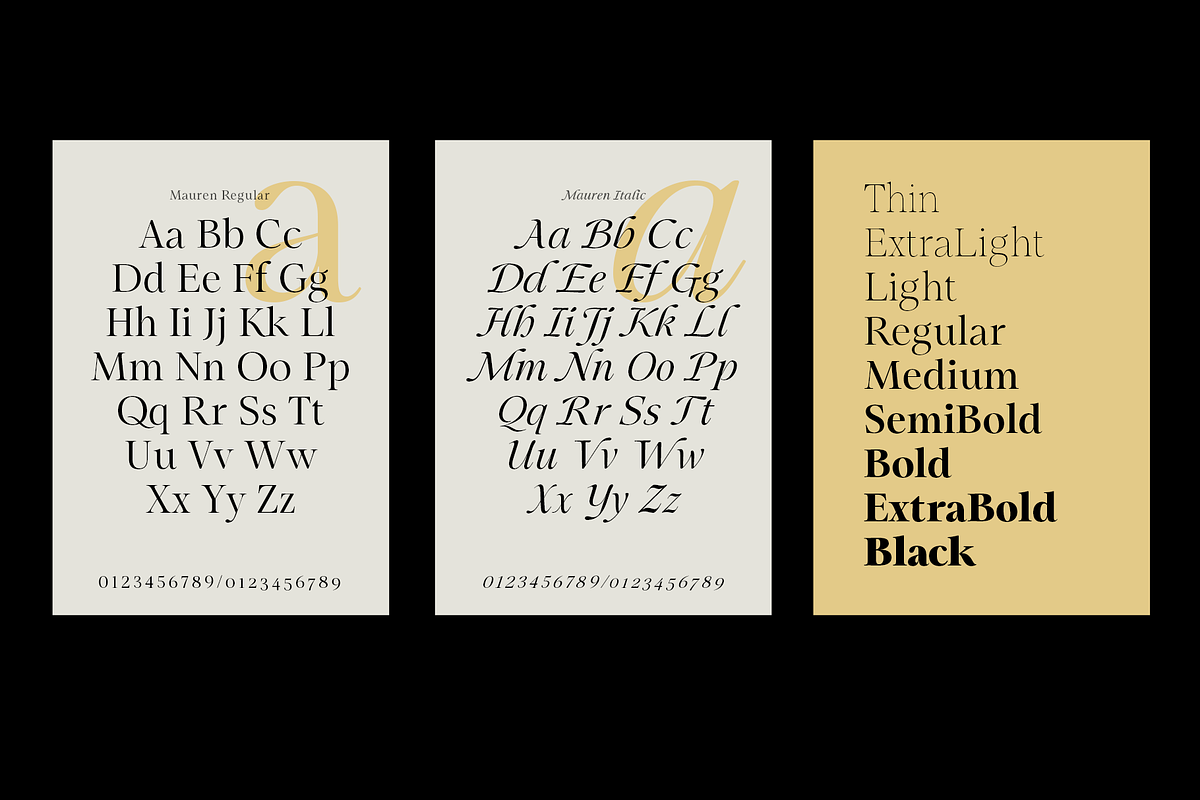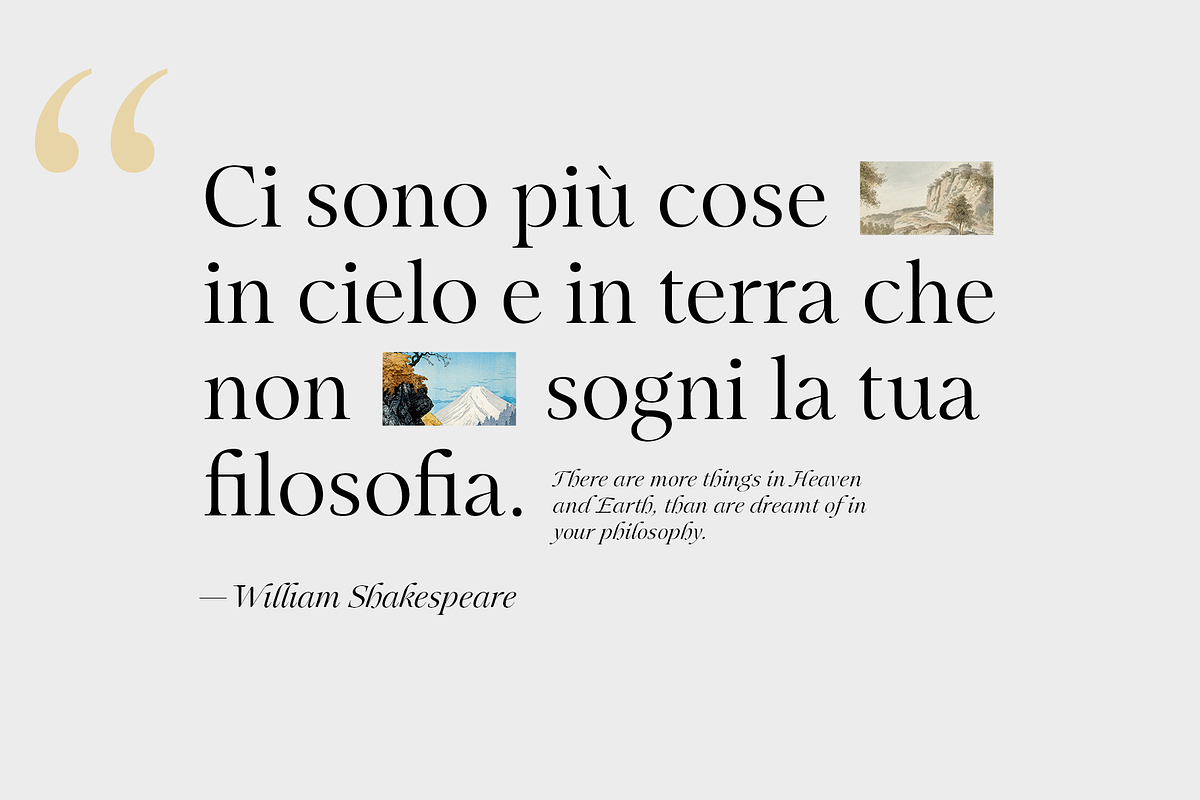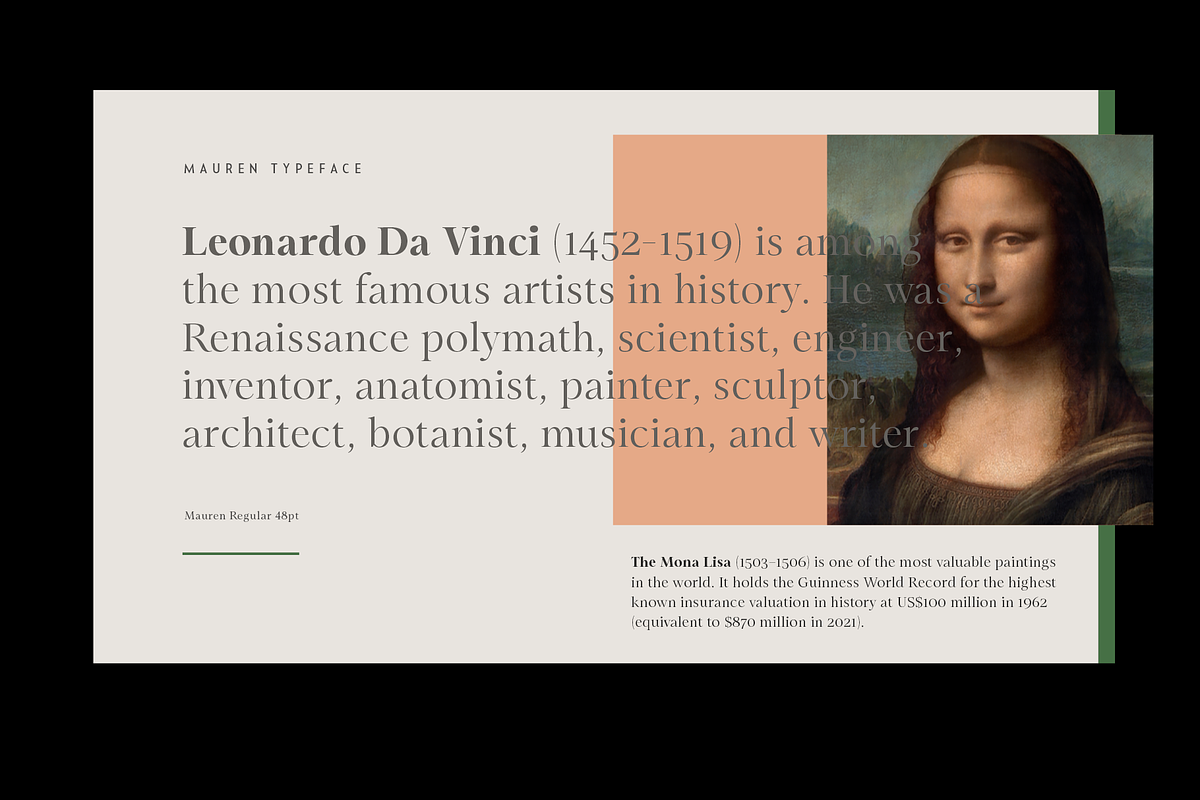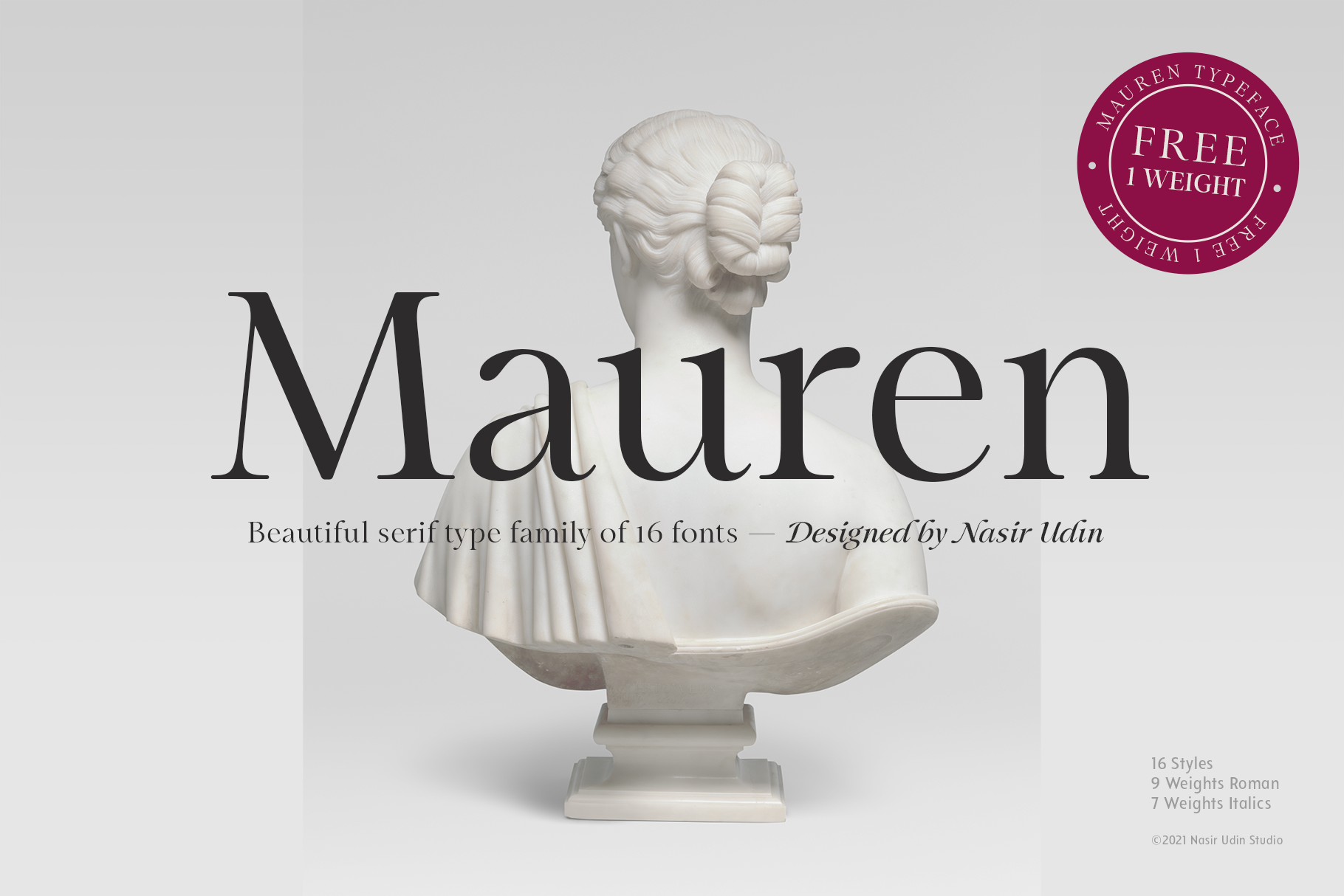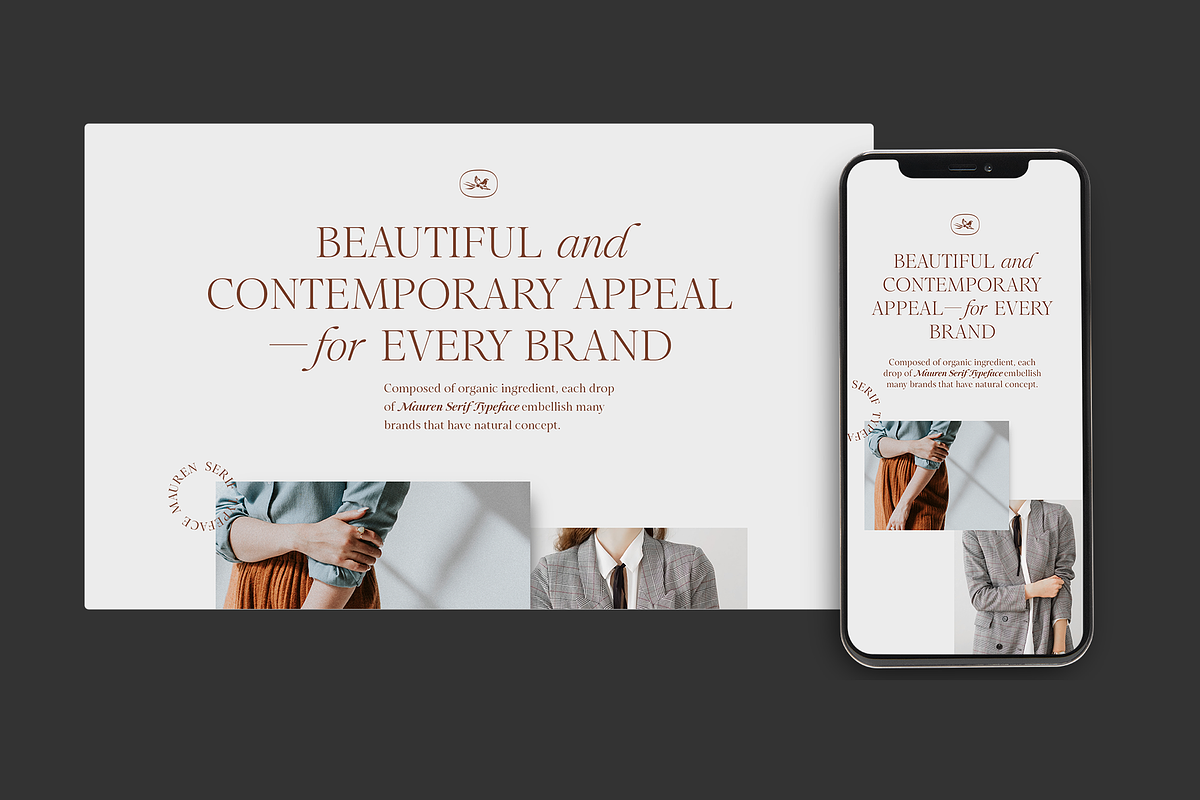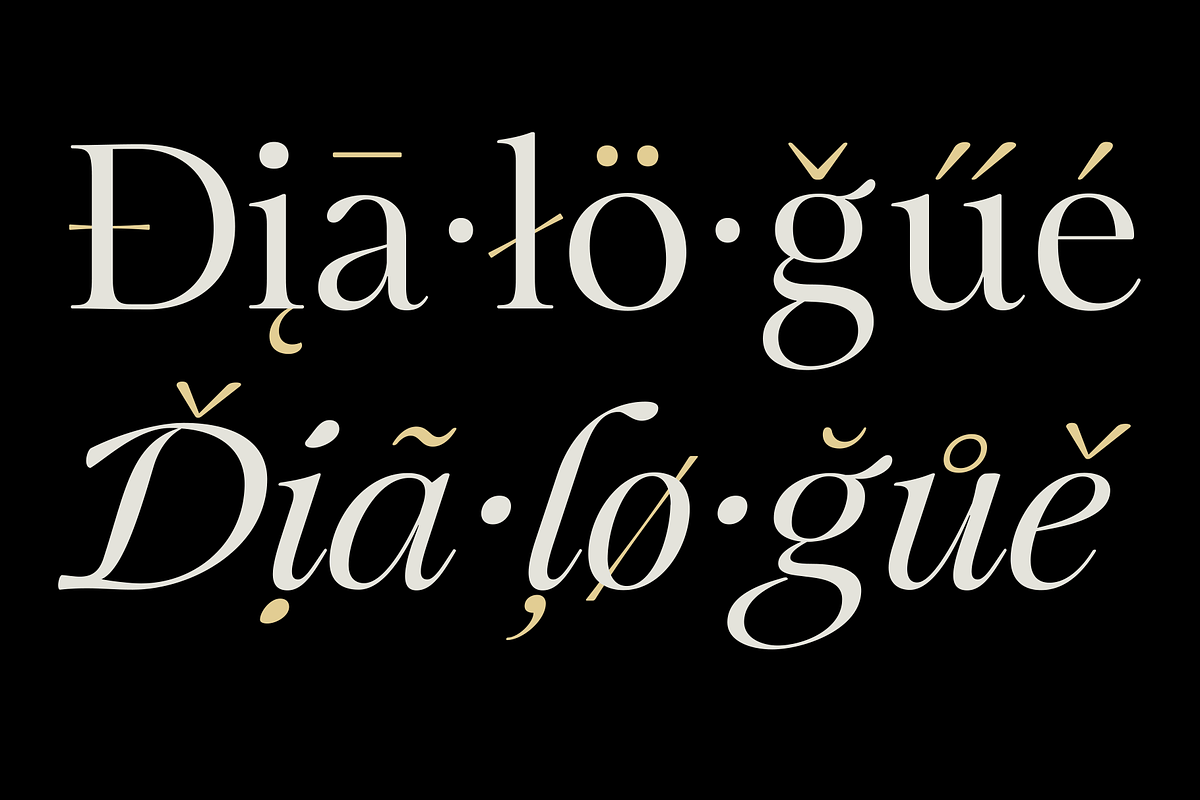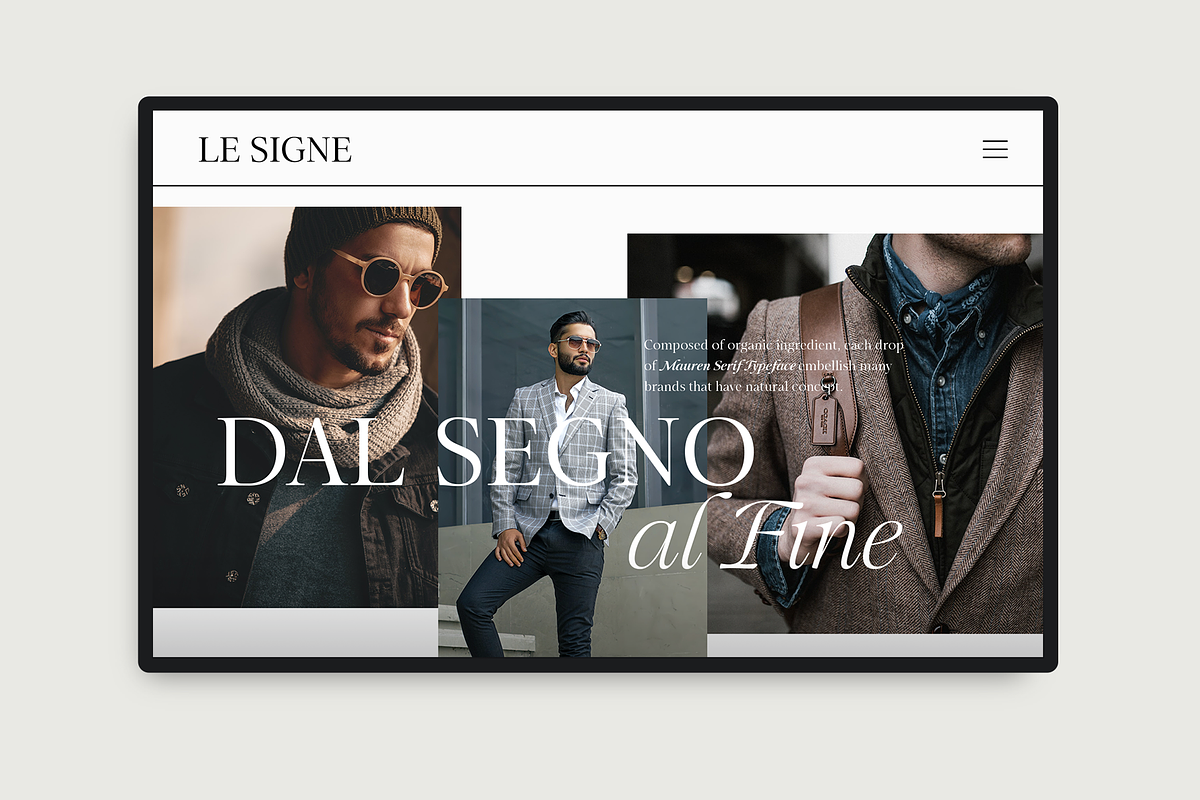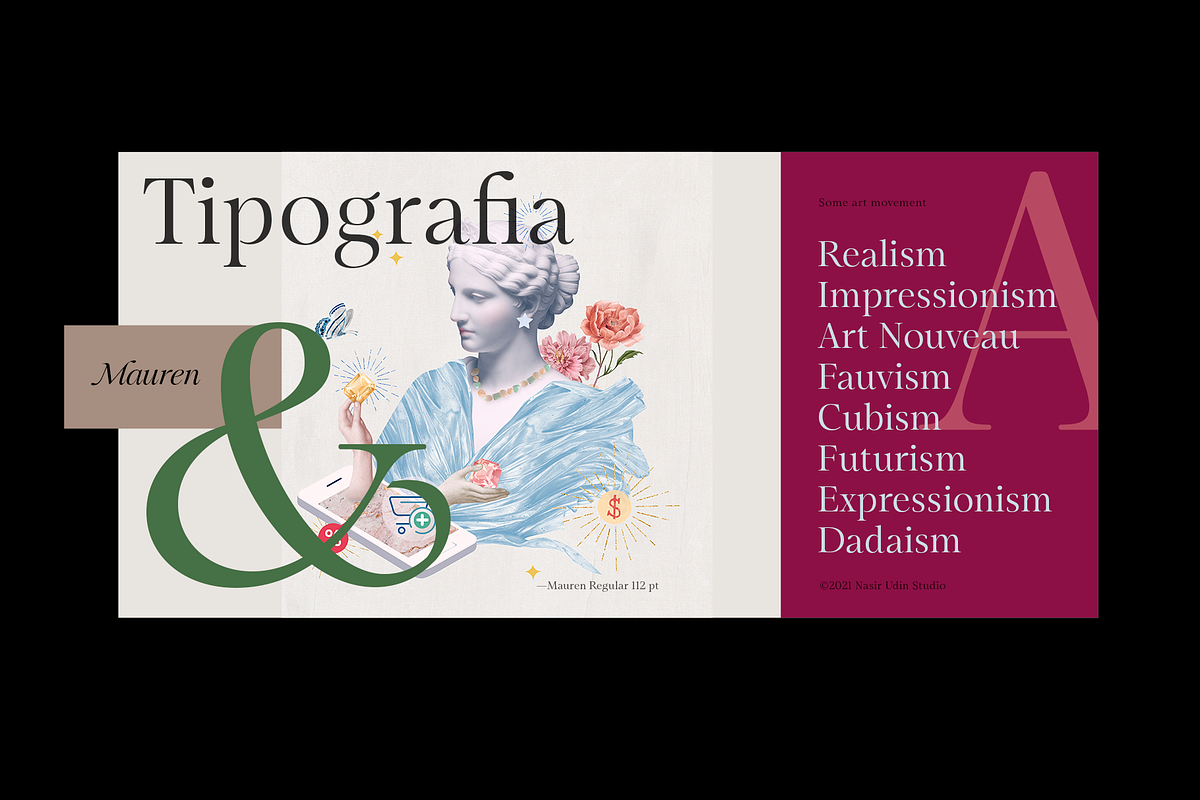
Mauren — 16 Fonts
Mauren is a serif typeface inspired by the beauty of classic serif and calligraphic style, fused with modern appeal to blend with modern needs.
Ranging from thin to black with italics, Mauren offers many possibilities to be applied in many graphic or editorial projects. The lighter weights are suitable for short paragraph, and the heavier weights are perfect for headlines, perfectly suitable for display purpose such as branding, editorial, book covers, and packaging.
Mauren has extended latin character set that supports 200+ latin-based languages.
Key features:
- 9 weights Roman
- 7 weights Italic
- Extended Latin that supports 200+ languages
- Glyph count: 516 glyphs (Roman), 504 glyphs (Italics)